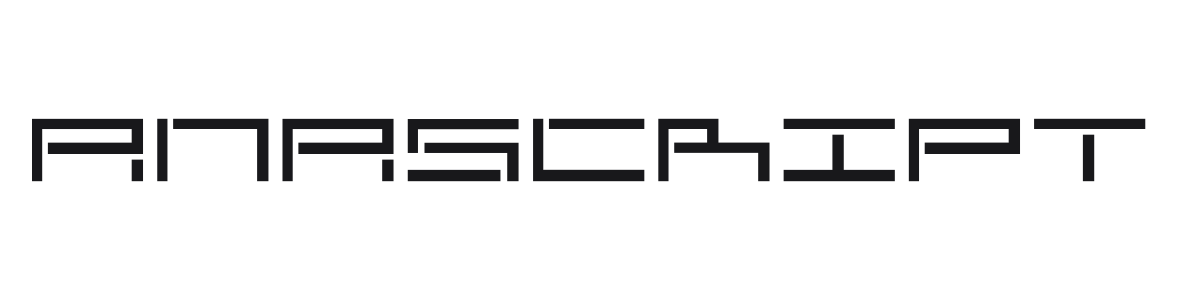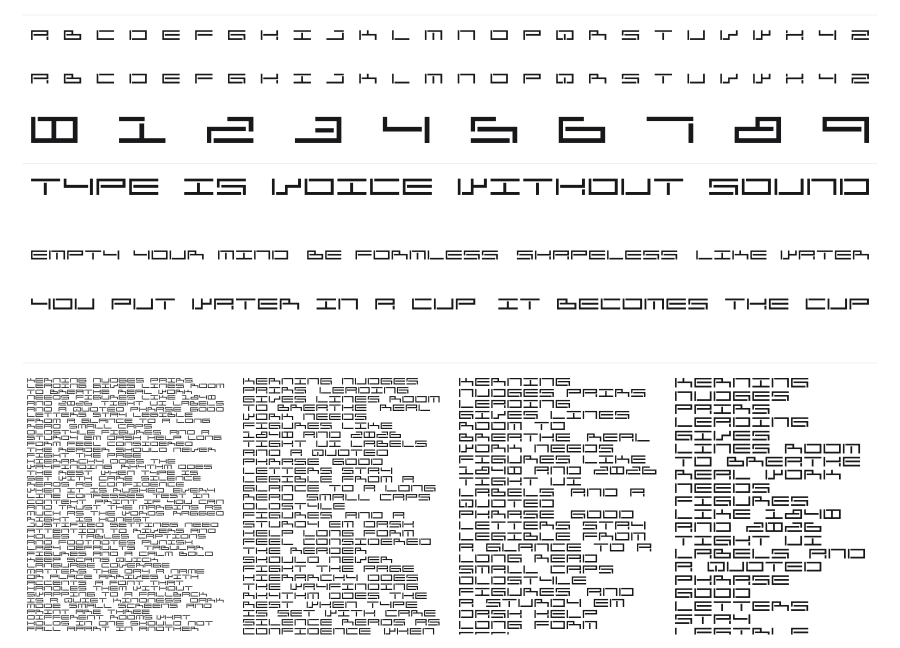
AnaScript
by Victor "Sendhar" Colmant
AnaScript is a wide, square geometric sans built entirely on right angles and uniform strokes. Every character sits on a strict modular grid, giving the font the look of a pixelated display or machined label. It carries a sharp, cold techno energy that works well at large sizes for branding, gaming, and sci-fi contexts.